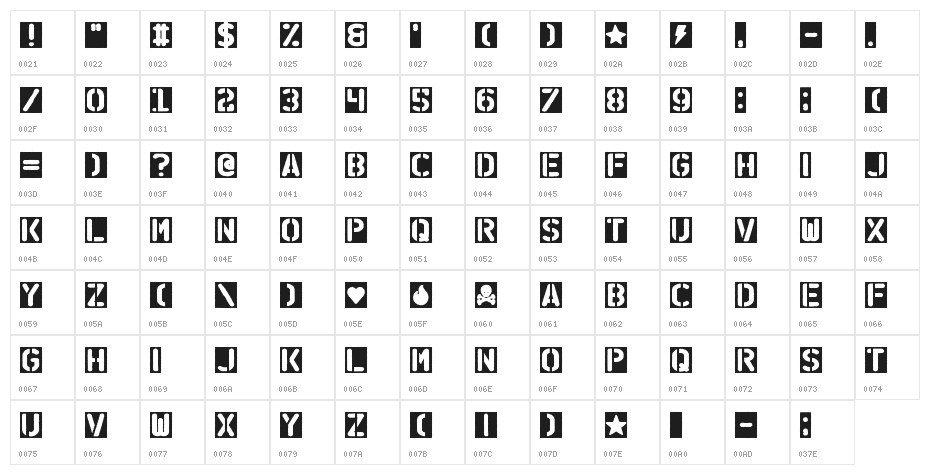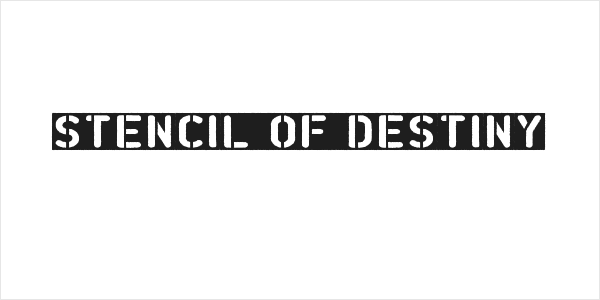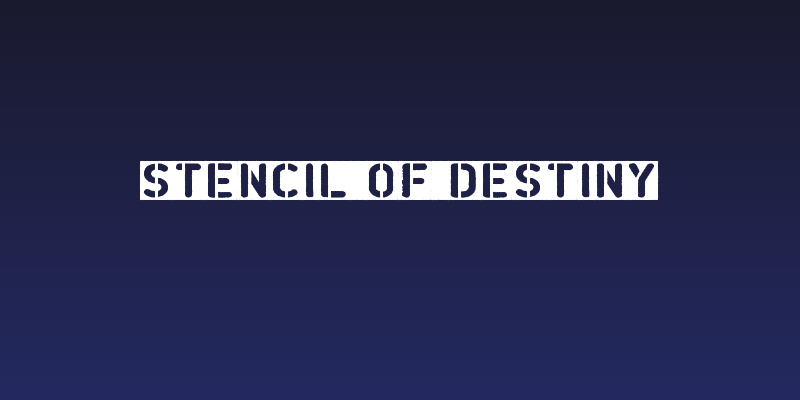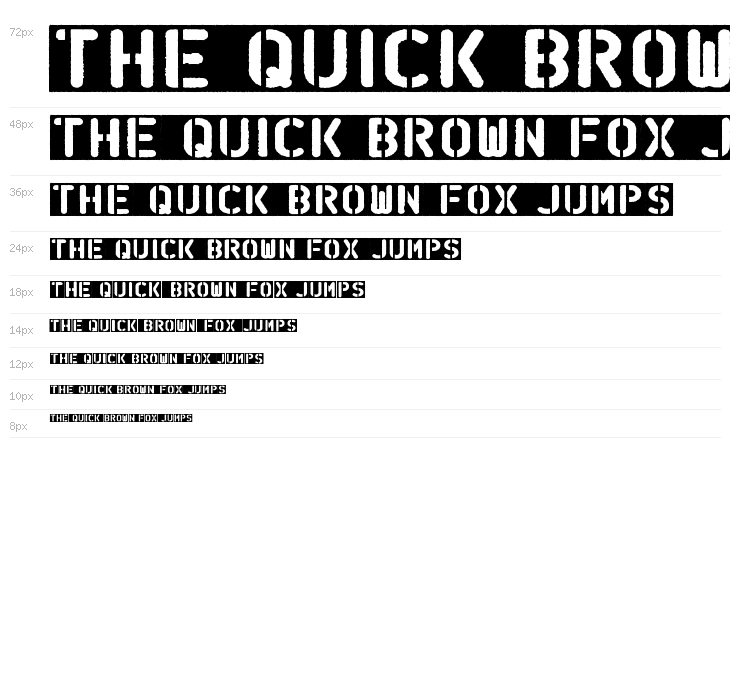
Stencil of Destiny Font
Stencil of Destiny Description
This font features a bold, stencil-like design with distinct gaps in each character, reminiscent of industrial or military stencils. The uppercase letters are uniform in height, with a strong geometric structure that emphasizes clarity and legibility. The numbers and special characters follow the same stencil pattern, ensuring consistency across all characters. The font's boldness and unique style make it stand out, while the stencil gaps add an element of ruggedness and utilitarian appeal.
| Overall Style | Industrial, Rugged |
| Use Case | Headlines, Logos, Signage |
| Proposed Projects | Ideal for projects requiring a rugged, industrial look such as posters, signage, military-themed designs, or branding for outdoor equipment. |